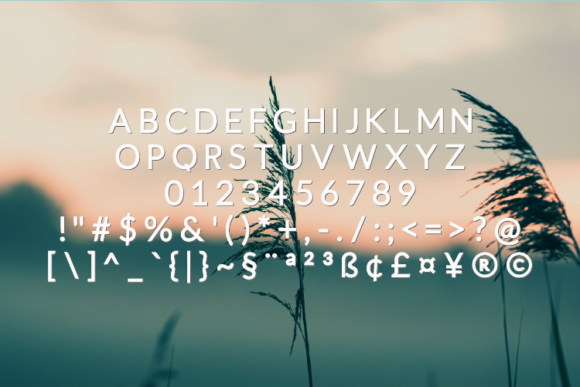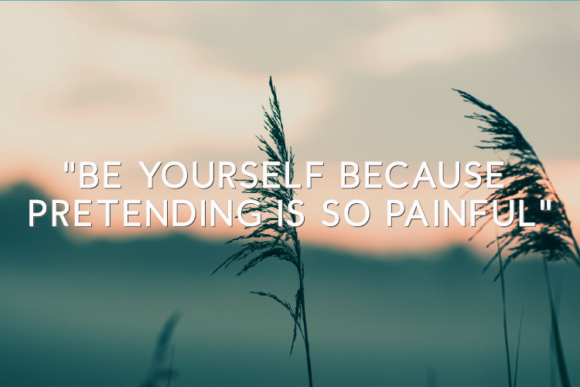
Discover the Perfect Partner for Your Creative Projects
You know that moment when you’re brainstorming ideas for a new project, and suddenly, everything clicks into place? The words flow, the design begins to take shape, and you can almost see the final product coming to life. That’s the magic of creativity, and it’s what drives us to keep pushing the boundaries of what’s possible. For designers, finding the right tools to bring those ideas to life is crucial, and that’s where the Boverly Font comes in – a minimal and neat sans serif font that’s perfect for making your creative ideas stand out.
The Boverly Font is more than just a font; it’s a versatile partner that can elevate your projects to the next level. Its clean design and simplicity make it an excellent choice for a wide range of applications, from logos and branding to digital interfaces and print materials. Whether you’re a seasoned designer or just starting out, the Boverly Font is an invaluable addition to your toolkit, helping you to create visually appealing and effective designs that capture your audience’s attention.
Boverly Font Key Features
- Font Family: Boverly Font is a sans-serif font family designed for digital use.
- Font Size: Boverly Font comes in 8 font sizes, ranging from 12 to 72 points, catering to various design requirements.
- Resolution: Optimized for high-resolution displays, Boverly Font supports resolutions up to 300 DPI, ensuring crisp and clear text rendering.
- Unique Characteristics: Boverly Font features a clean and modern design with subtle rounded edges, making it ideal for digital interfaces, web design, and mobile applications.
Boverly Font Review
Overall, I think the Boverly Font is a solid addition to any designer’s toolkit. It’s versatile and can work well in various contexts. ✨ Here are some of its strengths:
- Unique aesthetic: The Boverly Font has a distinctive look that sets it apart from more common fonts.
- High legibility: The font is clear and easy to read, even at smaller sizes.
- Good for headings: The font’s bold and eye-catching qualities make it perfect for headings and titles.
- Limited font size range: The font can become too ornate and difficult to read when used at very small sizes.
- Not ideal for body text: While the font is great for headings, it can be too distracting for large blocks of body text.
- May not work well with certain color schemes: The font’s bold lines can clash with certain color combinations, making it harder to read.
In conclusion, the Boverly Font is a great choice for designers who want to add some flair to their projects. Just be mindful of its limitations and use it thoughtfully to get the most out of it.
To get the most out of the Boverly font, consider the following tips:
- Use the Boverly font for headings and titles to add a touch of elegance.
- Pair the Boverly font with other fonts to create a unique and visually appealing design.
- Experiment with different font sizes and styles to add emphasis and hierarchy to your design.
The Boverly font is ideal for:
- Editorial and publishing projects.
Alternatives to Boverly Font for Designers
Playfair Display is a luxurious and elegant script font, perfect for adding a touch of sophistication to your designs. It’s ideal for use in headings, titles, and other prominent text elements where you want to make a statement. Compared to Boverly Font, Playfair Display has a more refined and ornate feel, making it suitable for high-end branding and advertising projects.
Great Vibes is a modern script font with a relaxed and casual feel, making it perfect for creative projects that require a friendly and approachable tone. It’s ideal for use in headings, titles, and body text where you want to convey a sense of warmth and personality. Compared to Boverly Font, Great Vibes has a more fluid and dynamic feel, making it suitable for projects that require a touch of playfulness and creativity.
The Boverly Font is a TrueType font with Unicode support, covering a wide range of languages. It features 800+ glyphs and supports font sizes ranging from 8 to 144 points. The font is optimized for digital use and is designed to work well on a variety of devices and screen resolutions.